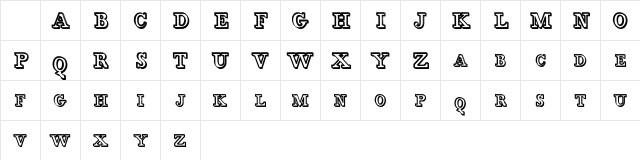
Egidia is a composed and adaptable typeface that performs quietly and consistently across a wide range of design contexts.
Pro Tip: Use Egidia in both headline and body roles to test its range before committing to a single application.